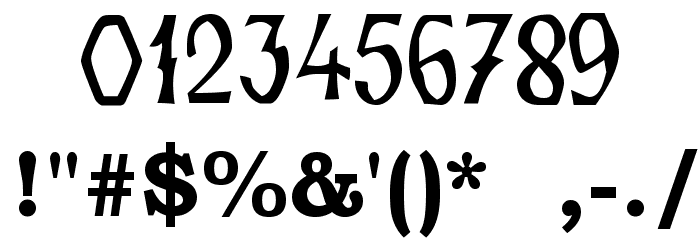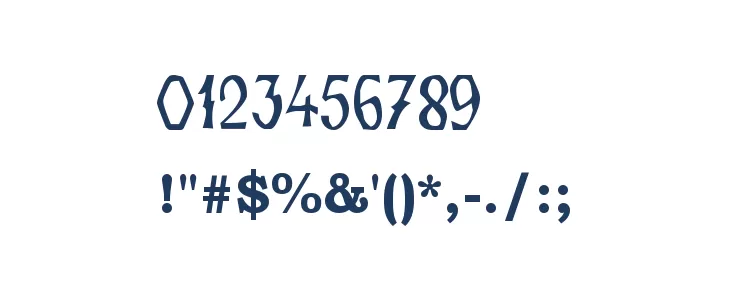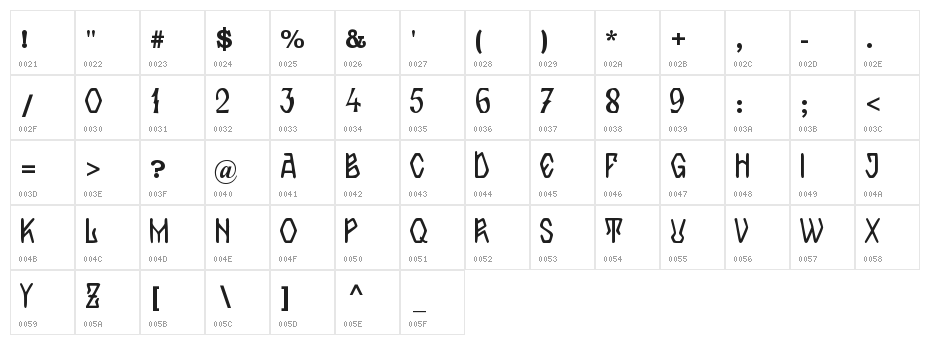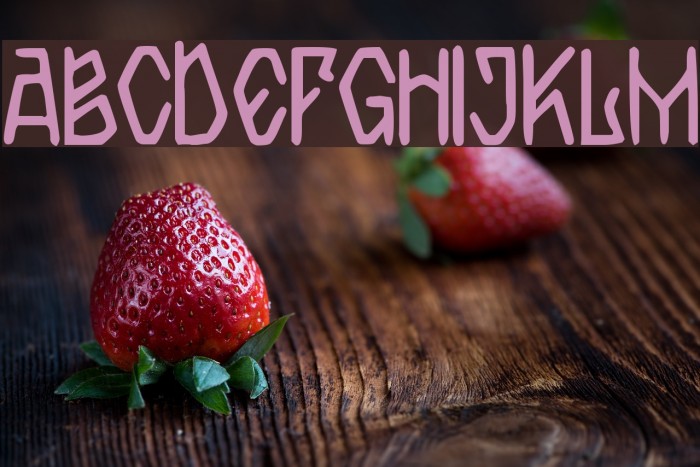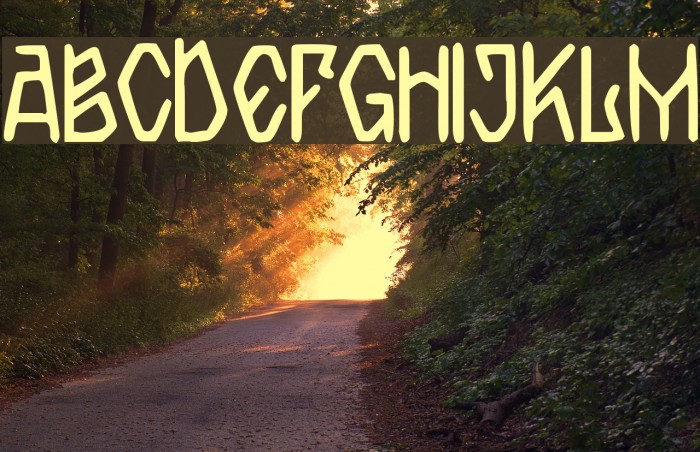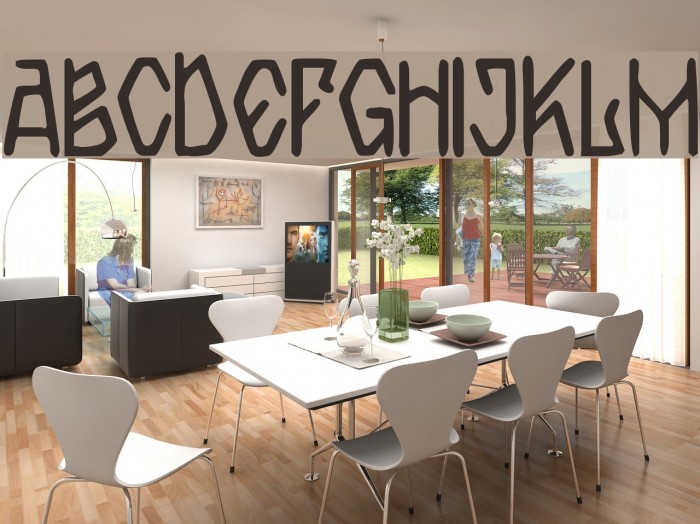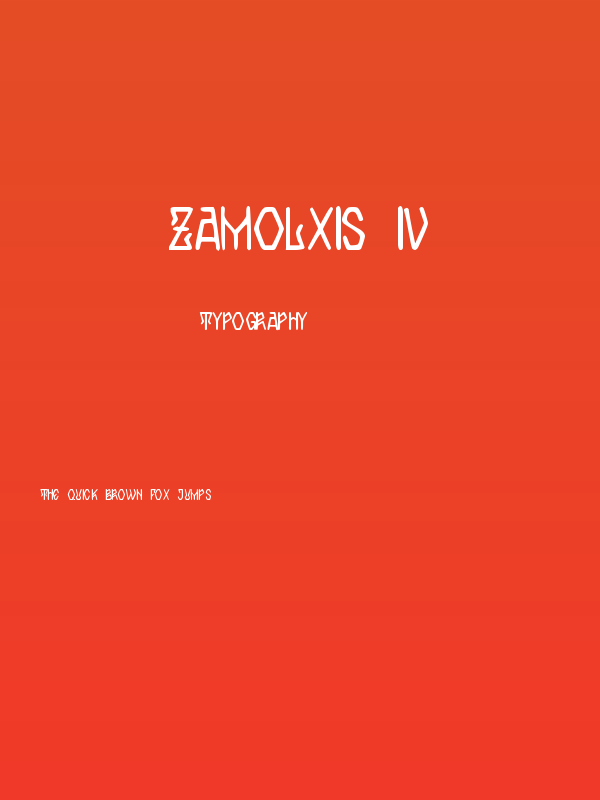
Zamolxis IV Font
Zamolxis IV Description
This font features a bold and distinctive design with angular, geometric shapes that give it a unique and modern appearance. The uppercase letters are characterized by sharp edges and a slightly condensed form, while the lowercase letters maintain a consistent style with a touch of playfulness. The numbers are bold and easily readable, complementing the overall aesthetic. Special characters are designed to match the angular theme, ensuring a cohesive look across all elements. This font's striking appearance makes it ideal for projects that require a strong visual impact.